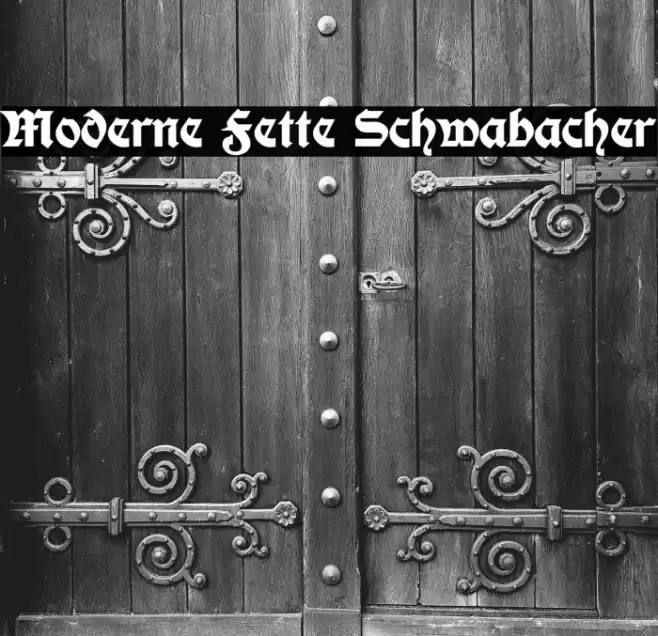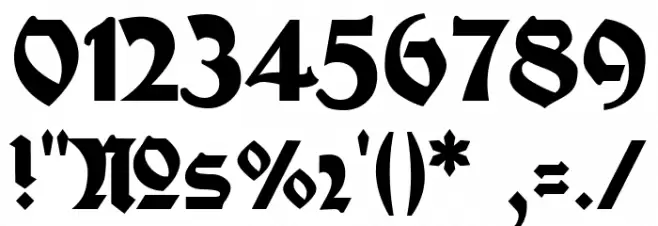
Moderne Fette Schwabacher Font
Moderne Fette Schwabacher Description
This font exhibits a bold and striking Blackletter style, characterized by its sharp, angular lines and intricate detailing. The uppercase letters feature strong vertical strokes and pointed serifs, creating a dramatic and historical appearance. The lowercase letters maintain the same angularity, with unique flourishes that add to the font's ornate nature. Numbers and special characters are equally bold, ensuring consistency throughout. This font's design is reminiscent of medieval manuscripts, offering a sense of tradition and elegance.
A bold Blackletter font with sharp, angular lines and intricate detailing from Uncategorized fonts.
- Proposed Projects: Ideal for projects that require a historical or traditional touch, such as book covers, certificates, or branding for vintage-themed products.
- Overall Style: Vintage
- Use Case: Headlines, Logos, Decorative text